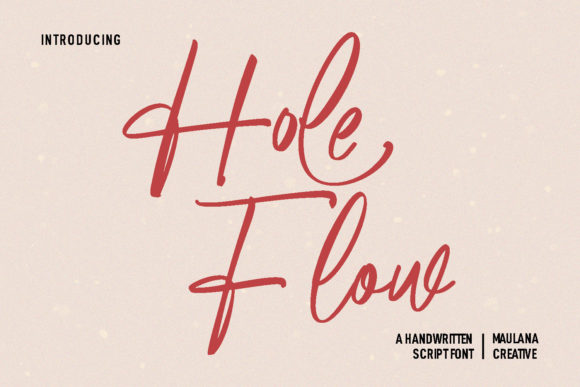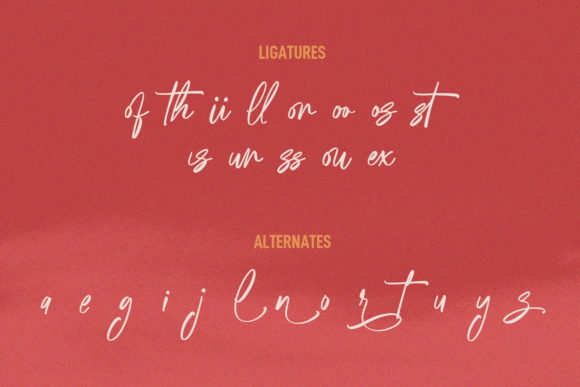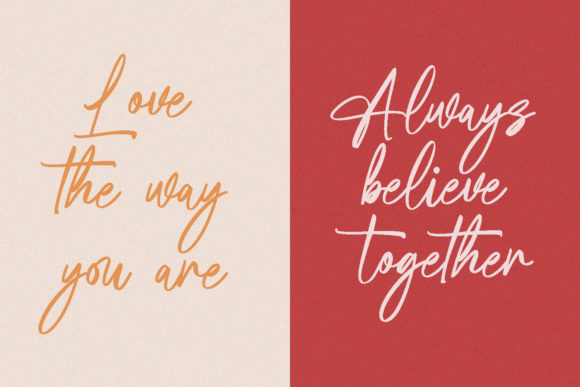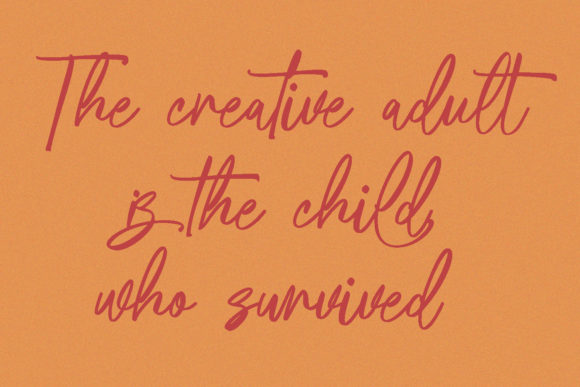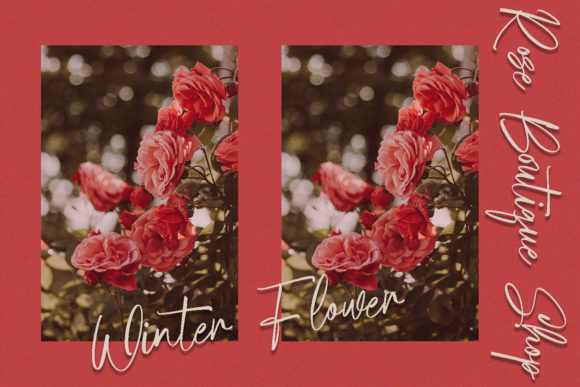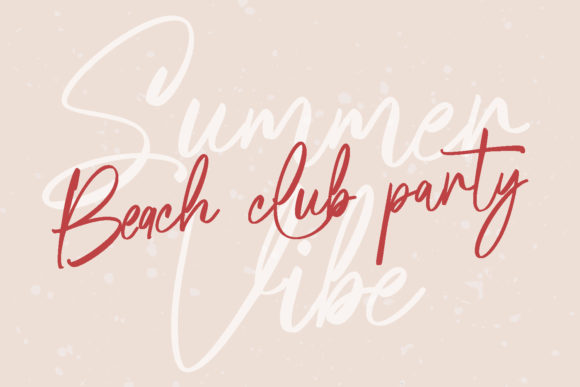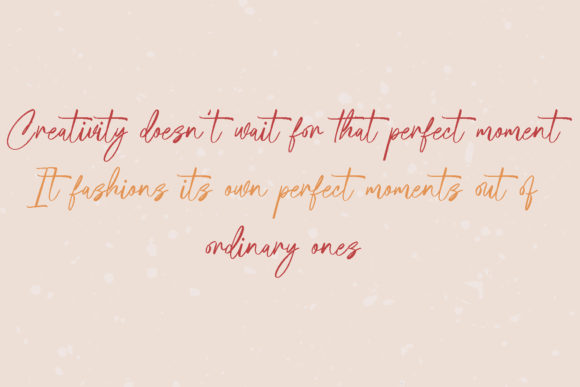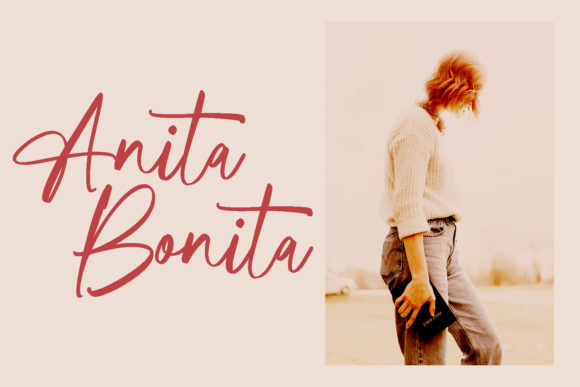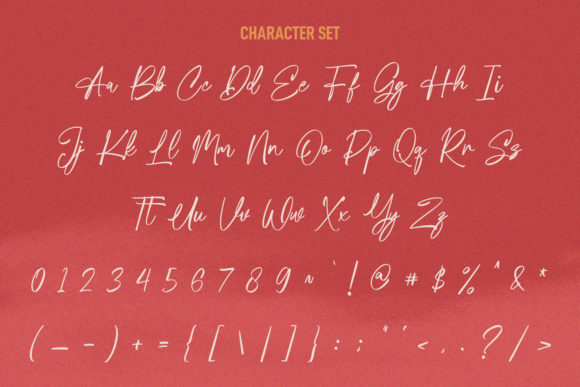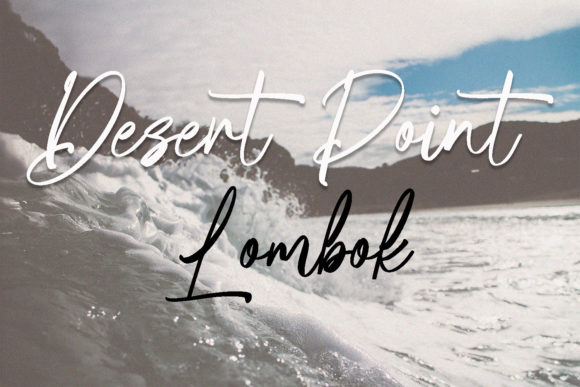
Hole Flow Font
Hole Flow is a handwritten font that is both fashionable and subtle. It has been crafted with great care to yield maximum results. This font can add a touch of elegance and class to any of your design projects.
The fashionable nature of Hole Flow gives it a stylish and trendy feel. This makes it perfect for projects that require a touch of style and modernity. Whether you’re designing a logo, a poster, or a website, Hole Flow can add that extra touch of fashion that makes your designs stand out.
One of the standout features of Hole Flow is its subtlety. This gives it a sophisticated and understated feel, making it perfect for projects that require a touch of elegance and sophistication. Whether you’re designing a wedding invitation, a logo, or a social media post, Hole Flow can add that extra touch of subtlety that makes your designs stand out.
Hole Flow is not just a font; it’s a tool that can help you express your creativity. Its elegant and classy look can bring a sense of elegance and class to your designs, making them more appealing and engaging. Whether you’re designing for a client or for your own personal projects, Hole Flow can help you convey the right emotion and message.
In conclusion, Hole Flow is a fashionable, subtle, elegant, and classy handwritten font that is perfect for a wide range of projects. Its versatility and elegance make it a valuable asset for any designer. So, whether you’re a professional designer or a hobbyist, Hole Flow is a font worth considering for your next project. Why not give Hole Flow a try and see how it can enhance your designs? You might be surprised at the difference it can make!